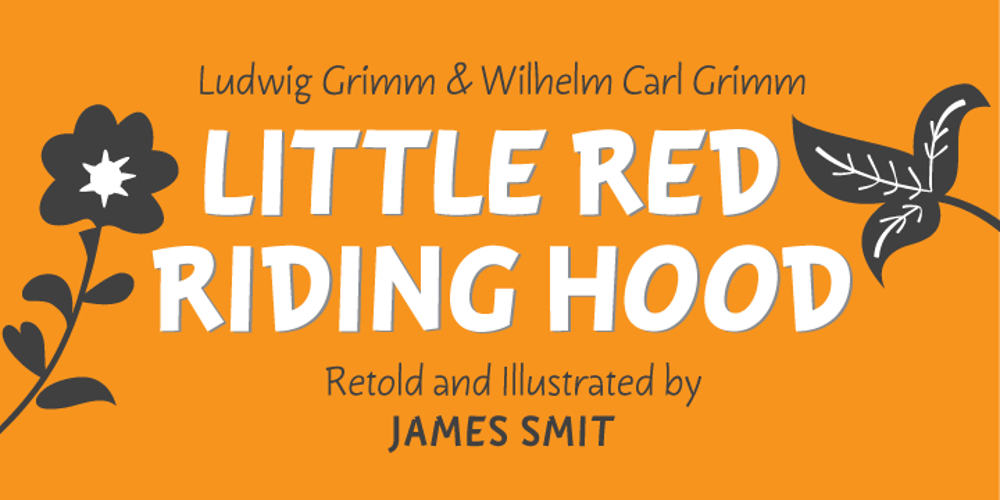
ALS Dereza
ALS Dereza font
ALS Dereza Font Family was designed by Elena Novoselova and published by Art. Lebedev Studio. ALS Dereza contains 4 styles and family package options. Dereza is a grotesque typeface designed specially for display use in children’s books and magazines. Books for little ones are usually set in grotesques, and a vigorous font would make a nice addition to the main face. Playful and lively, Dereza is great for any non-grown-up design such as games and toy boxes, cookie jars and cereal packs, clothing labels and other things meant for kids. It looks super in speech bubbles. The Dereza family includes four fonts, from light to bold, with ligatures, lowercase figures and accented characters.